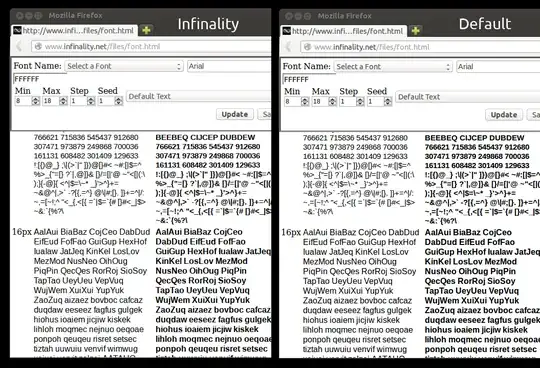
I'm pretty familiar with Ubuntu and Linux in general. I use Ubuntu at work for software development. What always bothers me about Ubuntu is the fonts - I really like the crisp fonts used all over Windows (the program bar, headers, etc.) and compared to them, the Ubuntu fonts seem bulky and weird.
In the past, I had several Ubuntu installations on multiple devices, but I could never seem to configure the fonts to my satisfaction. Even the results I did get cost me hours and hours of reading online and configuring fonts in obscure menus and files. I know it probably sounds silly, but this is currently the main reason I don't install Ubuntu on my laptop right now.
Is there a package, script or window manager for Ubuntu that set up fonts in a way that is similar to Windows, without too much hassle of a configuration?
Windows fonts are avaliable on Ubuntu, including Arial and Times New Roman.
I would suggest this article on WEB UPD8: Better Font Rendering In Linux With Infinality
Infinality is a set of Freetype patches that try to provide an improved font rendering for Linux and also, to allow easy customization so the users can adjust the settings to their taste. Using it, you can easily set the font style to emulate OSX, OSX2, Windows 98, WIndows XP or Windows 7 or you can use the "Linux" or "Infinality" (default) styles.
This is just an example (left the "Linux" style, right the default Ubuntu config).
Once you install Infinality, it's time to configure it. To set the style you want to use, run the following command:
And select the style you want to use. Available options are: debug, infinality, linux, osx, osx2, win7, win98 and winxp (I recommend using the "linux" style, obviously, but you can try any style, then remember to log out and log back in - you can easily select a different style later on by using the same command). To use the Windows or OSX style you'll also need to use the Windows or OSX fonts.
And in this file, search for USE_STYLE (it should be USE_STYLE="DEFAULT" by default) and change it to one of the following styles (I recommend using "UBUNTU" here but you should also try the default to see which one you like better):
• DEFAULT - A compromise that should please most people;
• OSX - Simulate OSX rendering;
• IPAD - Simulate iPad rendering;
• UBUNTU - Simulate Ubuntu rendering;
• LINUX - Generic "Linux" style - no snapping or certain other tweaks;
• WINDOWS - Simulate Windows rendering;
• WINDOWS7 - Simulate Windows rendering with normal glyphs;
• WINDOWS7LIGHT- Simulate Windows 7 rendering with lighter glyphs;
• WINDOWS - Simulate Windows rendering;
• VANILLA - Just subpixel hinting;
• CUSTOM - Your own choice;
• Infinality styles:
• CLASSIC - Infinality rendering circa 2010. No snapping;
• NUDGE - CLASSIC with lightly stem snapping and tweaks;
• PUSH - CLASSIC with medium stem snapping and tweaks;
• SHOVE - Full stem snapping and tweaks without sharpening;
• SHARPENED - Full stem snapping, tweaks, and Windows-style sharpening;
• INFINALITY - Settings used by the Infinality developer;
• DISABLED - Act as though running without the extra infinality enhancements (just subpixel hinting).